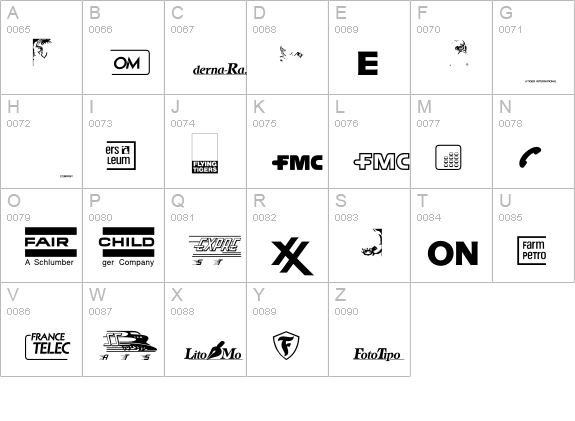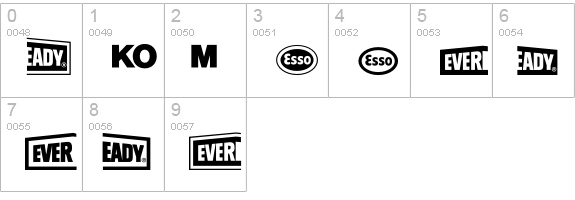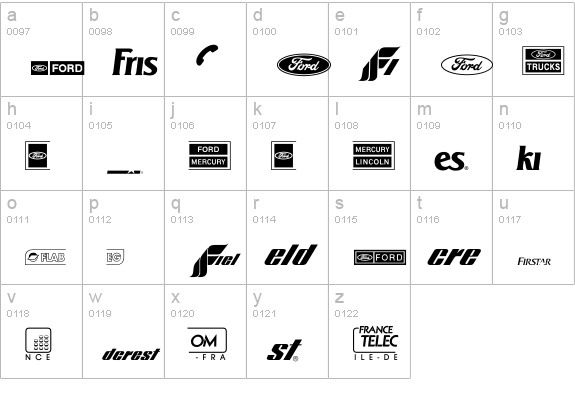
LogosCompanyP07 Font Details
LogosCompanyP07 font is a modern and stylish typeface that exudes professionalism and sophistication. With its sleek lines and elegant curves, this font is perfect for creating eye-catching designs for various projects. Whether you're designing a logo, a website, or a poster, LogosCompanyP07 font will surely make your text stand out. What makes LogosCompanyP07 font even more appealing is that it is available for free download at FontsMarket.com. Yes, you read that right - this stunning font can be yours at no cost at all! So why wait? Download LogosCompanyP07 font today and elevate your designs to the next level.